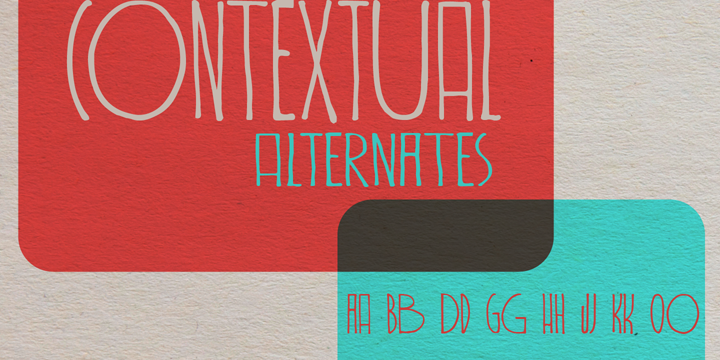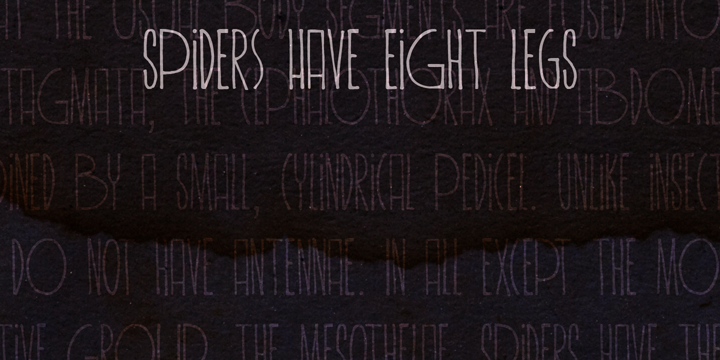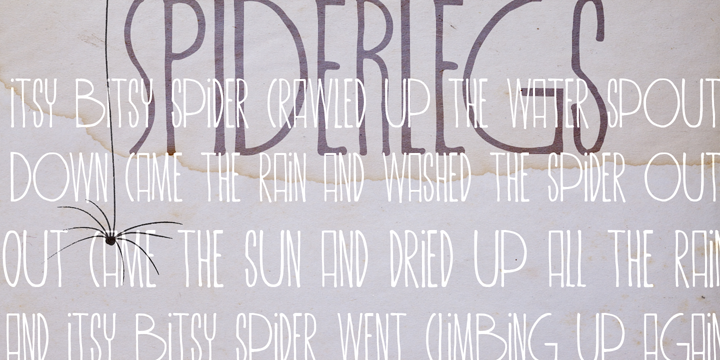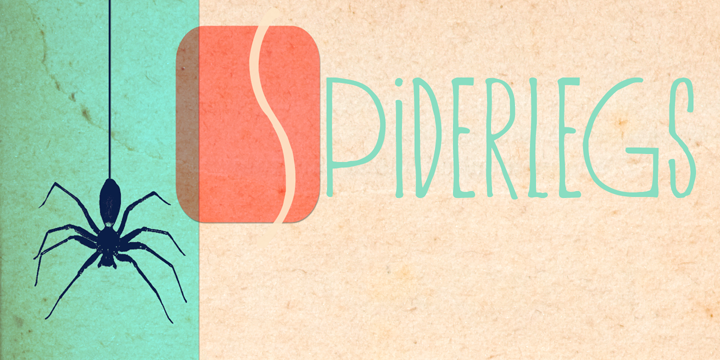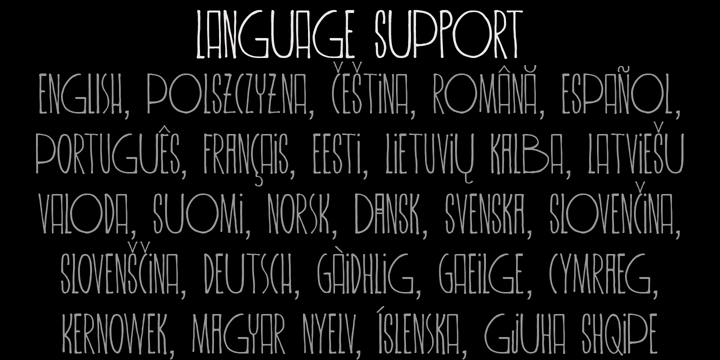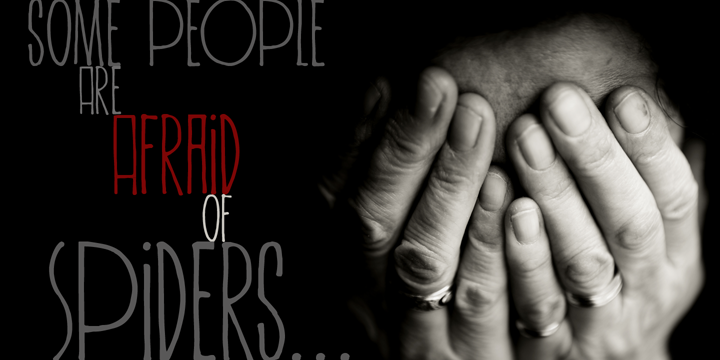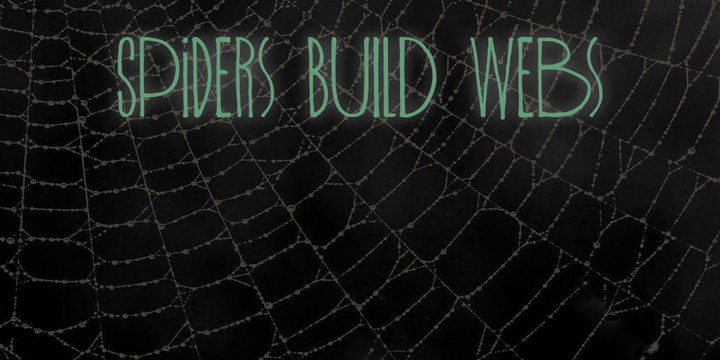
Spiderlegs is a novelty, hand display and art deco font family. This typeface has eight styles and was published by Hanoded.
Spiderlegs is a tall, handwritten typeface. It comes with Babylonian language support, contextual alternates and some pretty unique styles.